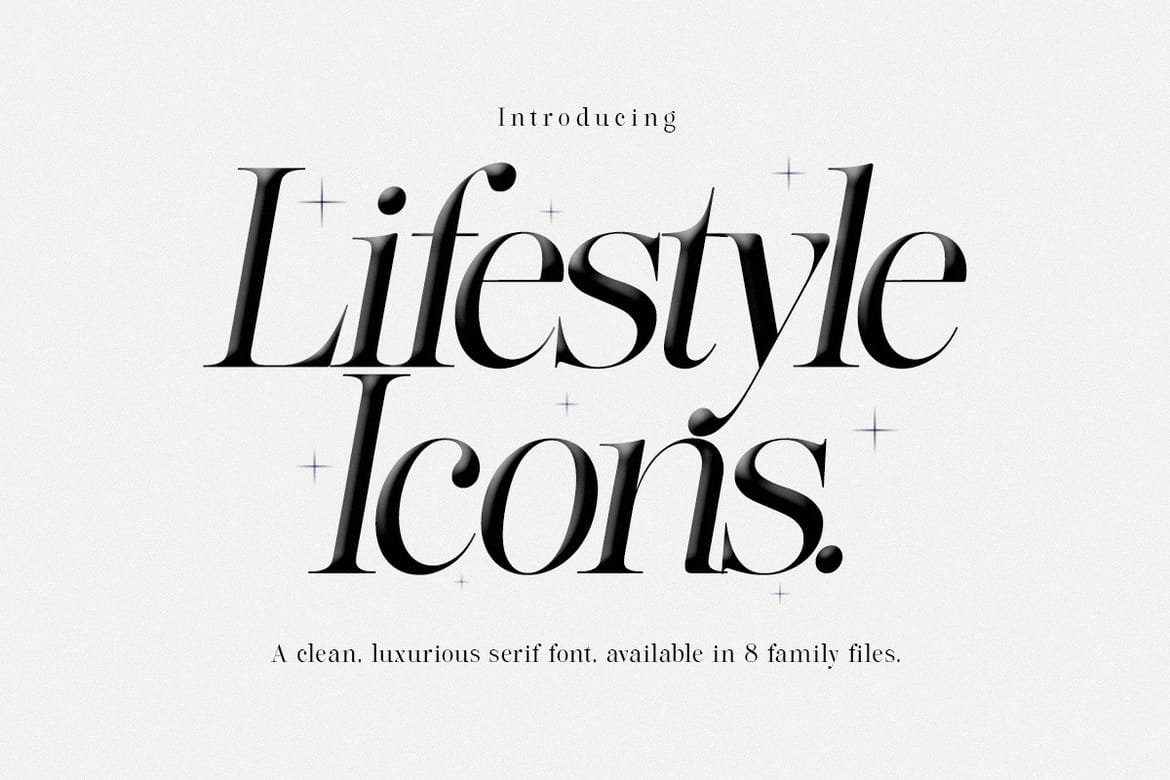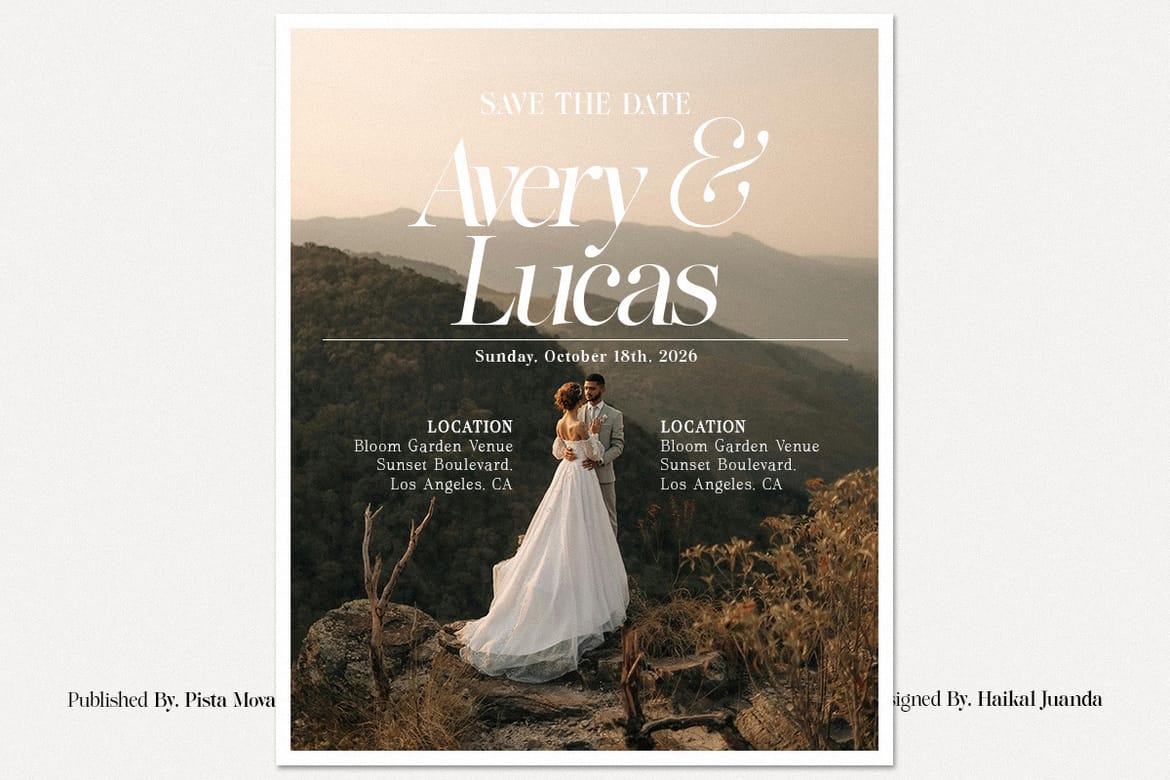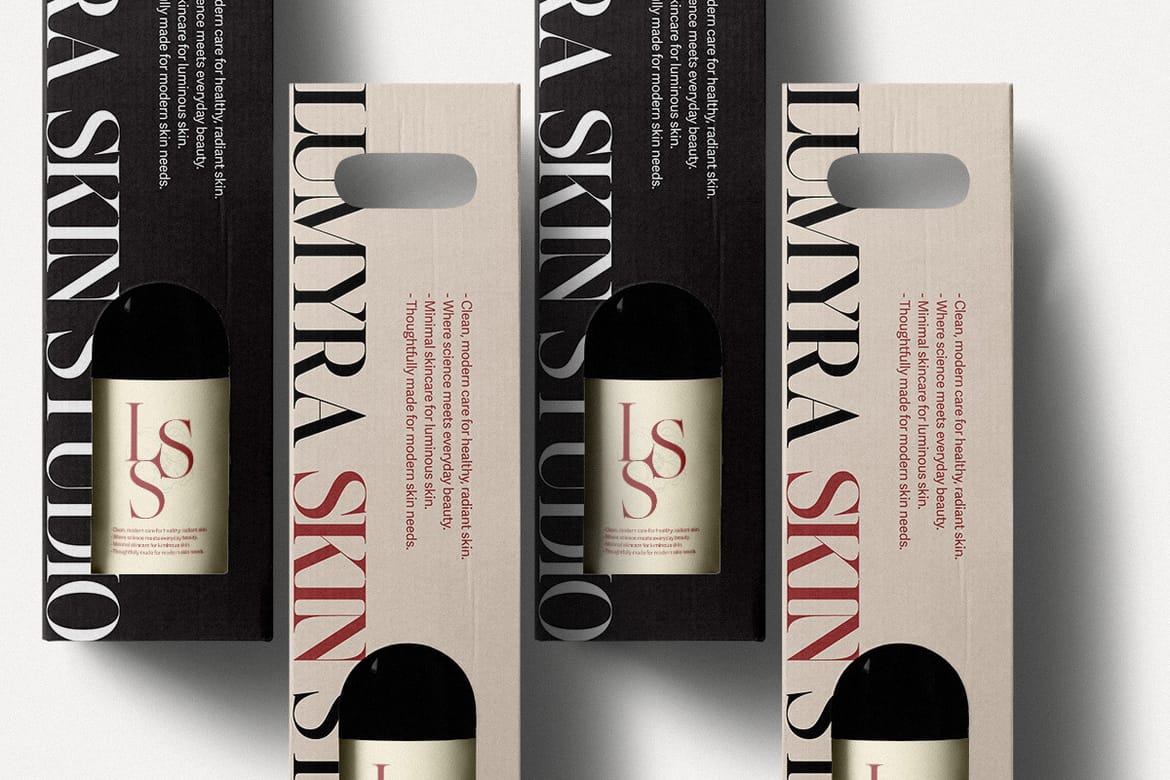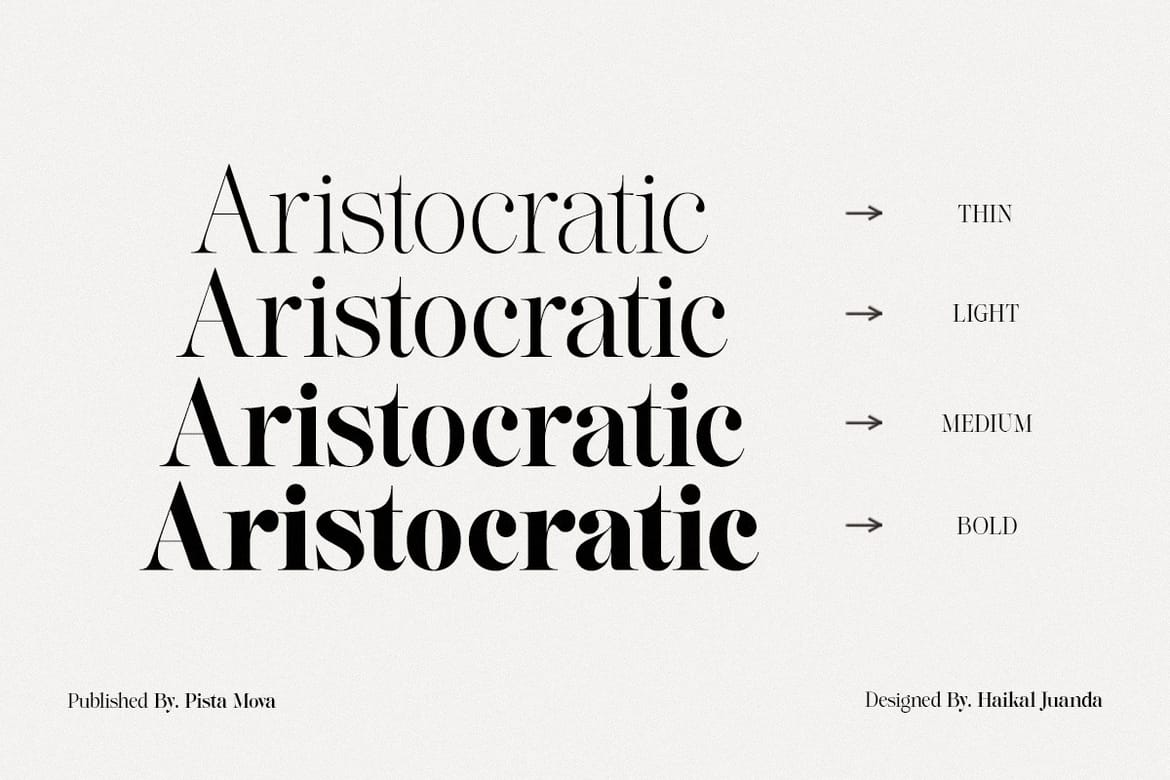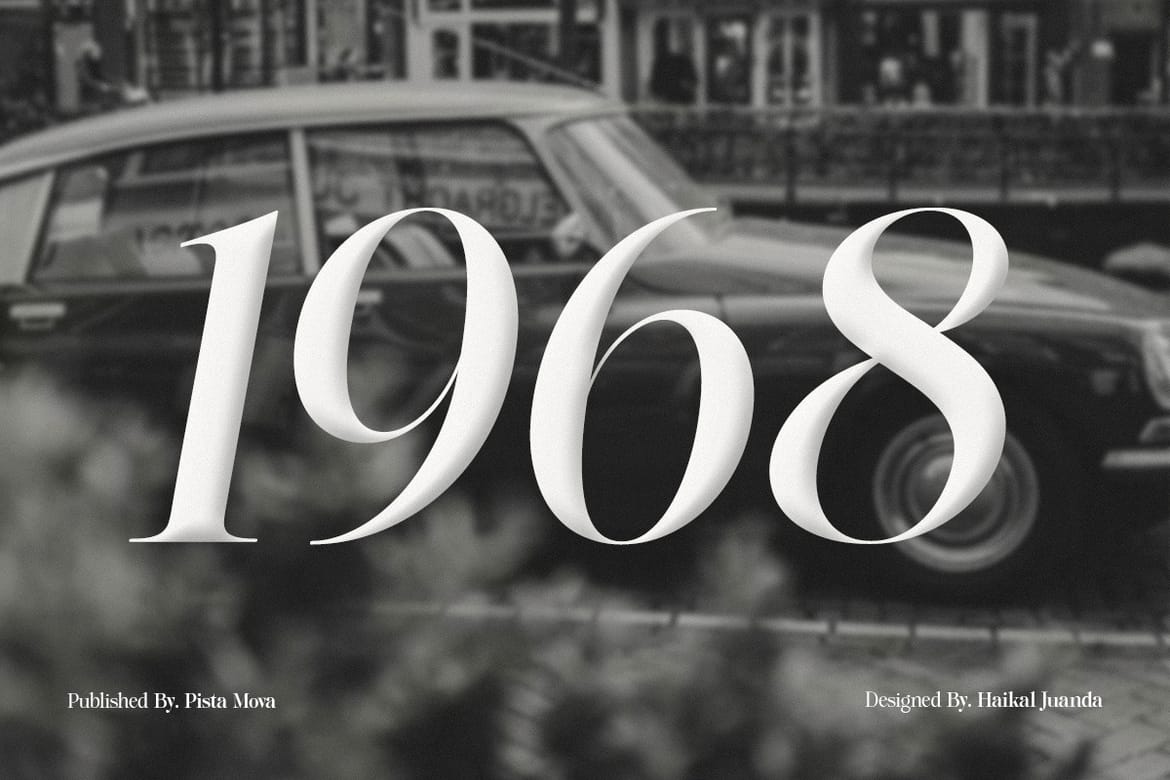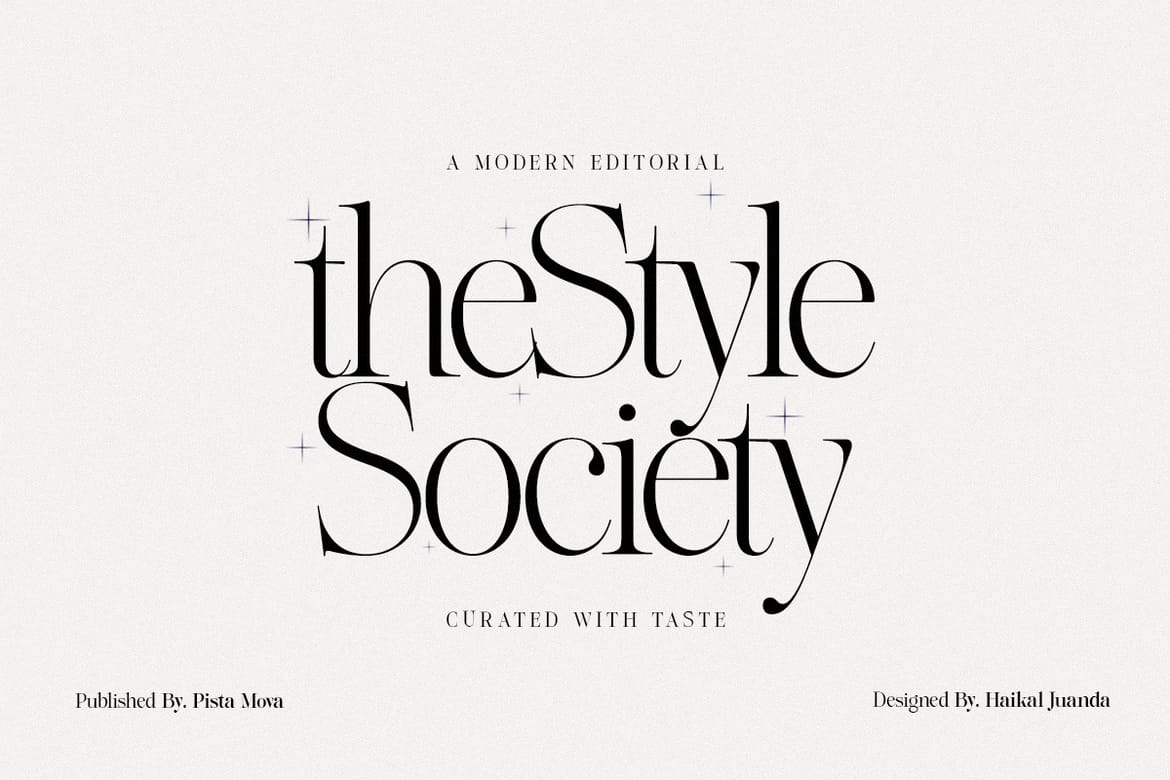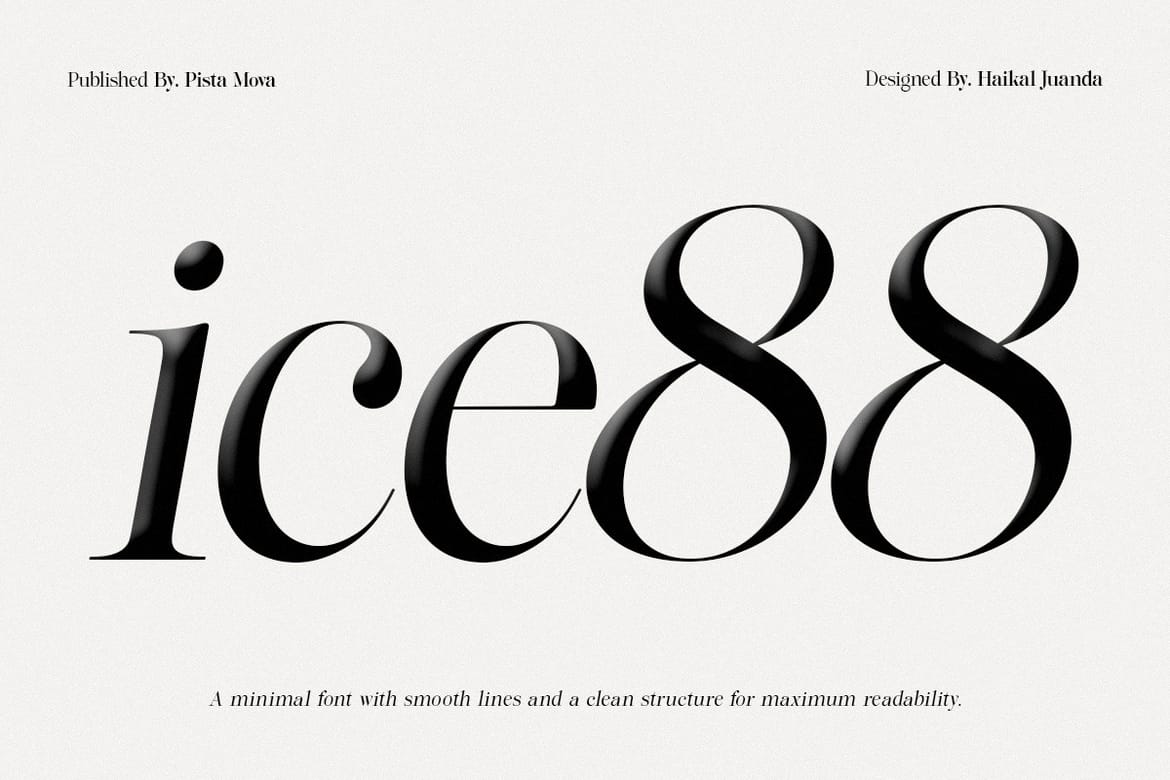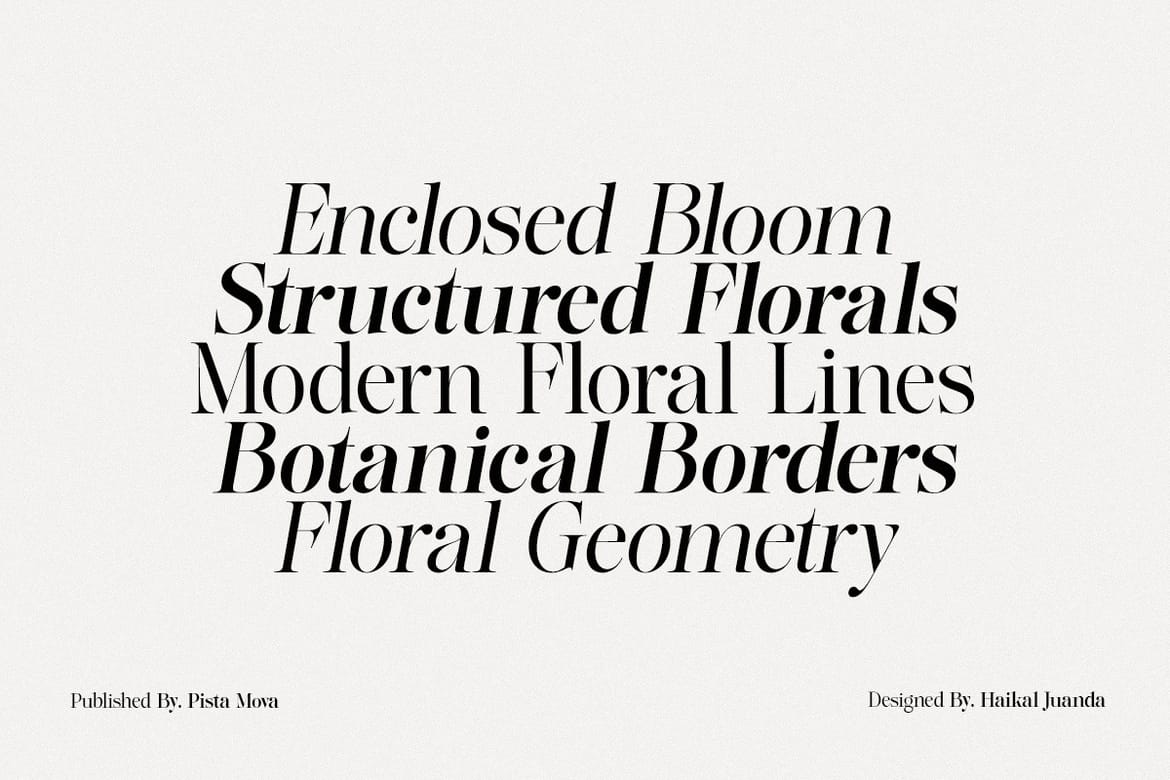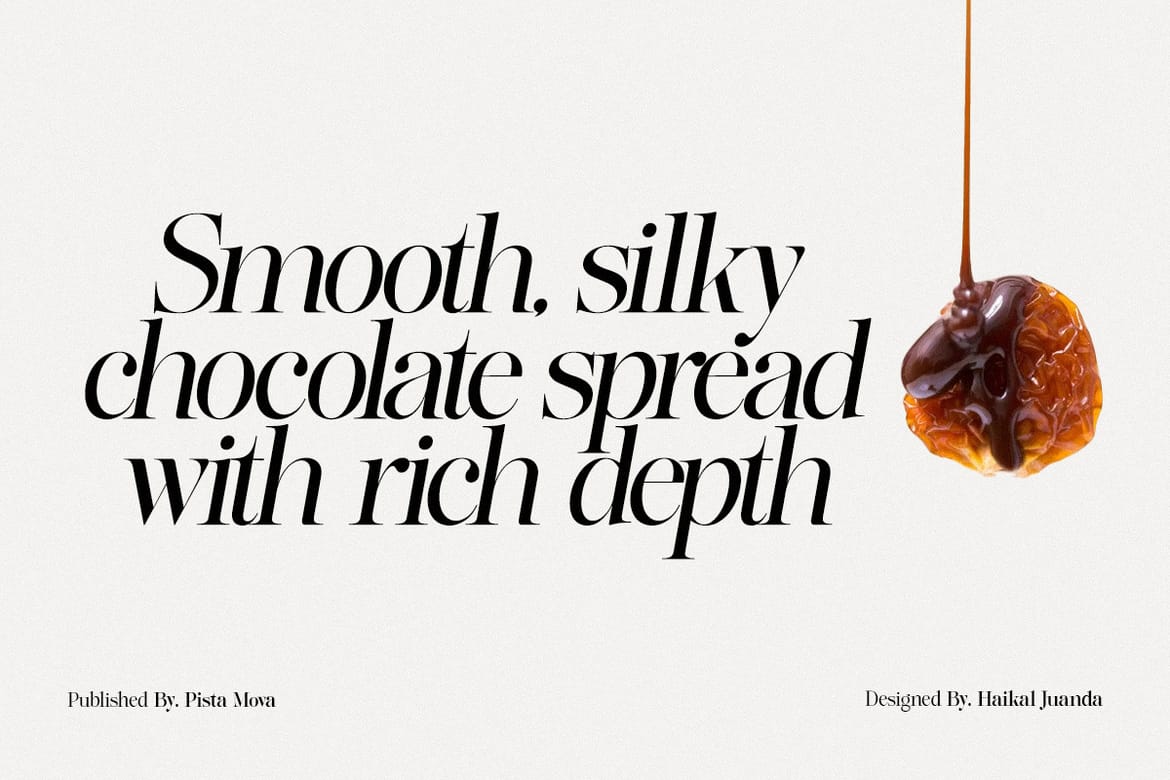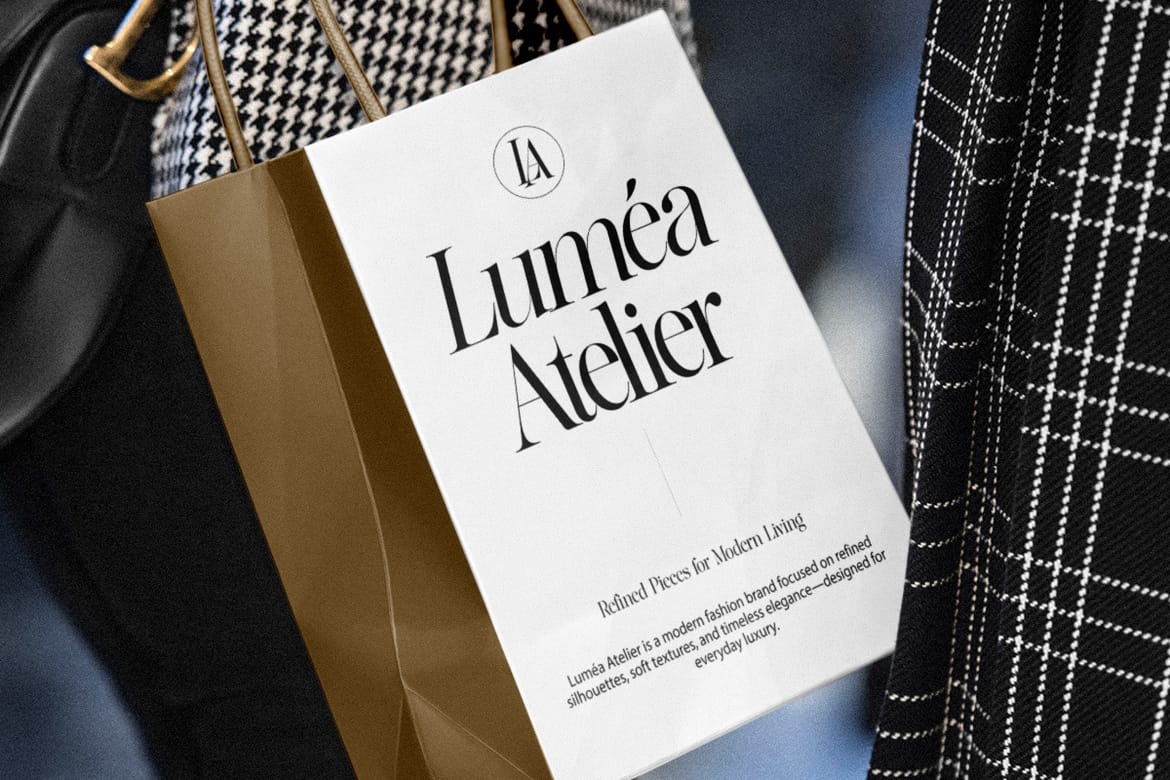
Introducing Lifestyle Icons
A Modern Serif with Timeless Elegance
Lifestyle Icons is a thoughtfully crafted serif typeface designed to bring refined elegance into contemporary design. This complete package includes 8 font files across 2 family styles, offering exceptional versatility for a wide range of creative applications—from editorial layouts to distinctive brand identities.
Blending classic charm with a modern sensibility, Lifestyle Icons features high-contrast strokes, graceful curves, and well-balanced proportions that create a sophisticated visual rhythm. Every character is designed to feel confident yet subtle, enhancing the overall aesthetic of any design. Whether used for elegant editorial compositions, bold branding, or engaging web experiences, Lifestyle Icons delivers a refined presence that elevates your work.
- Perfect for editorial, branding, web, packaging, and social media
- Normal & slant family styles
- Perfect for editorial & branding